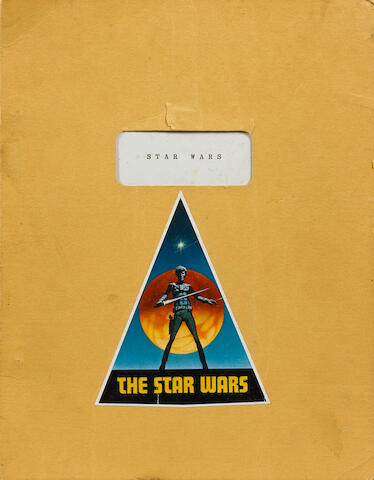
Star Wars Script Font
I decided to write an "outgoing" text component, which looks like a 3D effect such as in the intro to the Star Wars movies GDI provides many easytouse objects and functions Using these functions, you can do something special without much trouble.
Star wars script font. All six films from the Lucas era use the Gothic/Univers font The first three films used sophisticated camera work to produce the crawl When The Phantom Menace came along, Star Wars legend John Knoll came up with a new way to get them on screen so they matched the original crawl As an aside, Knoll is the gentleman that famously pitched the idea of what would become Rogue One to Kathleen Kennedy!. Most likely you are reading this because you are a designer who searches for some free futuristic or uncommon fonts, maybe ‘Star Wars’ style onesStop here, you are at the right place We have gathered 15 superb fonts in ‘Star Wars’ styleAll of them are free to use. 6 0 1 Published 29th June, Last edited 30th September, Created 27th June, Font used in the menu screens, Kyle Katarn's PDA, and subtitles from Star Wars Dark Forces, (C) 1995 LucasArts While there have been at least 2 previous recreations of this design (Peter 'The Hutt' Klassen's "DFFonts 15" FON fonts and James 'Burning Gundam' Milne's "Katarns PDF"(sic) TTF font.
The font used for Star Wars The Force Awakens logo is ITC Serif Gothic Heavy, which is a display serif font designed by Antonio DiSpigna & Herb Lubalin and published by ITC Sources & Links ITC Serif Gothic Heavy Font on myfontscom ITC Serif Gothic Heavy Font on fontscom. Star Jedi is the font used in the movie Star Wars This font is designed by Boba Fonts You can use the font in your. Create your own Star Wars opening crawl Play and request your video to download.
Looking for The Mandalorian fonts?. The Star Wars Crawl Creator, a Web app recently added to Starwarscom, lets you channel your inner Abrams (or Lucas, if you're oldschool) to create one of those iconic text blocks. Looking for Sith fonts?.
Do not miss our most special fonts for your tattoos, drawings, prints, murals Star Wars fonts Do not miss the best fonts for one of the great classics, Star Wars. Nal Huttese graffiti While the original NalHuttese font only contained letters AS, an updated version emerged later on EagleFontscom, a searchable database of free TrueType fonts That new version was included in Star Wars The Old RepublicInscriptions on planet Coruscant are consistent with spelling the phrases "Black Sun" and "The sun shall rise". Star Wars Font Star Wars is an epic space film series created by George Lucas The film series made such great success that it is the third highest grossing film series behind only Harry Potter and James Bond films as of 11 What’s the font used for Star Wars Font?.
The legendary Star Wars movies have a cultfan following and for good reason Star War and its characters have inspired great number of things in the world of web and graphic design Fonts, for example Yes, there is a category known as Star Wars fonts We have looked up the Web and put together a collection of stunning Star Wars fonts which. Star Wars fonts are styled after the popular scifi movie series Fans of starwars have recreated all the logo, text, and language styles used in the movies Use our free generator to create retro 1970s movie credits, Jedi birthday cakes, or Skywalker designs!. If you’re in the process of hunting for one, scroll down We’ve found 50 awesome and totally free futuristic fonts you can use to design Many of these work best when set at larger sizes, but we’ve also included a few that are more versatile and lend themselves to parts of a design other than headlines or quotes.
Star Wars Font Star Wars is an epic space film series created by George Lucas The film series made such great success that it is the third highest grossing film series behind only Harry Potter and James Bond films as of 11 What’s the font used for Star Wars Font?. Seeking to put a modern spin on the old fashioned idea, Lucas employed the talents of many designers to create the font and various iterations of the logo _____ Star Wars films are beloved across the universe, and there is no mistaking the effect it has had on the film industry Using Star Wars intro text templates from Motion Array are the. Discover and customize the font Starkiller and other similar fonts, ready to share in Facebook and Twitter.
Submit a font Tools 23 matching requests on the forum SF Distant Galaxy Custom preview Size SF Distant Galaxy à by ShyFonts in Techno > Scifi 695,181 downloads (137 yesterday) Free for personal use 10 font files Download SF Distant Galaxyttf SF Distant Galaxy Italicttf SF Distant Galaxy Outlinettf. Click to find the best 4 free fonts in the The Mandalorian style Every font is free to download!. The official site for Star Wars, featuring the latest on Star Wars Episode VII The Force Awakens and Star Wars Rebels, with daily news, games, and videos Star Jedi Font dafontcom Star Jedi à by Boba Fonts in Techno > Scifi 2,743,257 downloads (1,284 yesterday) comments 100% Free 7 font files.
Create your own Star Wars opening crawl Play and request your video to download. Most likely you are reading this because you are a designer who searches for some free futuristic or uncommon fonts, maybe ‘Star Wars’ style onesStop here, you are at the right place We have gathered 15 superb fonts in ‘Star Wars’ styleAll of them are free to use. One thing to note about Babette, and any other script font, is the letters won’t be “connected” like they are in my image above This tutorial will show you the easiest way to make your script fonts look like a handwritten cursive word 2 Alexis Mattox Tuesday Another great script and simple combo is this dream team.
Update Large font sizes do not autoupdate This is a preview imageTo get your logo, click the Next button Next Text Logo Text Font Size Script by Cameron Gregory More FlamingText Styles. Mandalorian fonts courtesy of Erikstormtrooper's Imperial Gallery Web font conversion courtesy of Font Squirrel Original Mando'a dictionary provided by Karen Traviss This project is created and maintained by Adrian ThomasPrestemon All Mando'a language material is copyright Lucasfilm Ltd. Download the Episode 1 font by Boba Fonts The Episode 1 font has been downloaded 26,444 times.